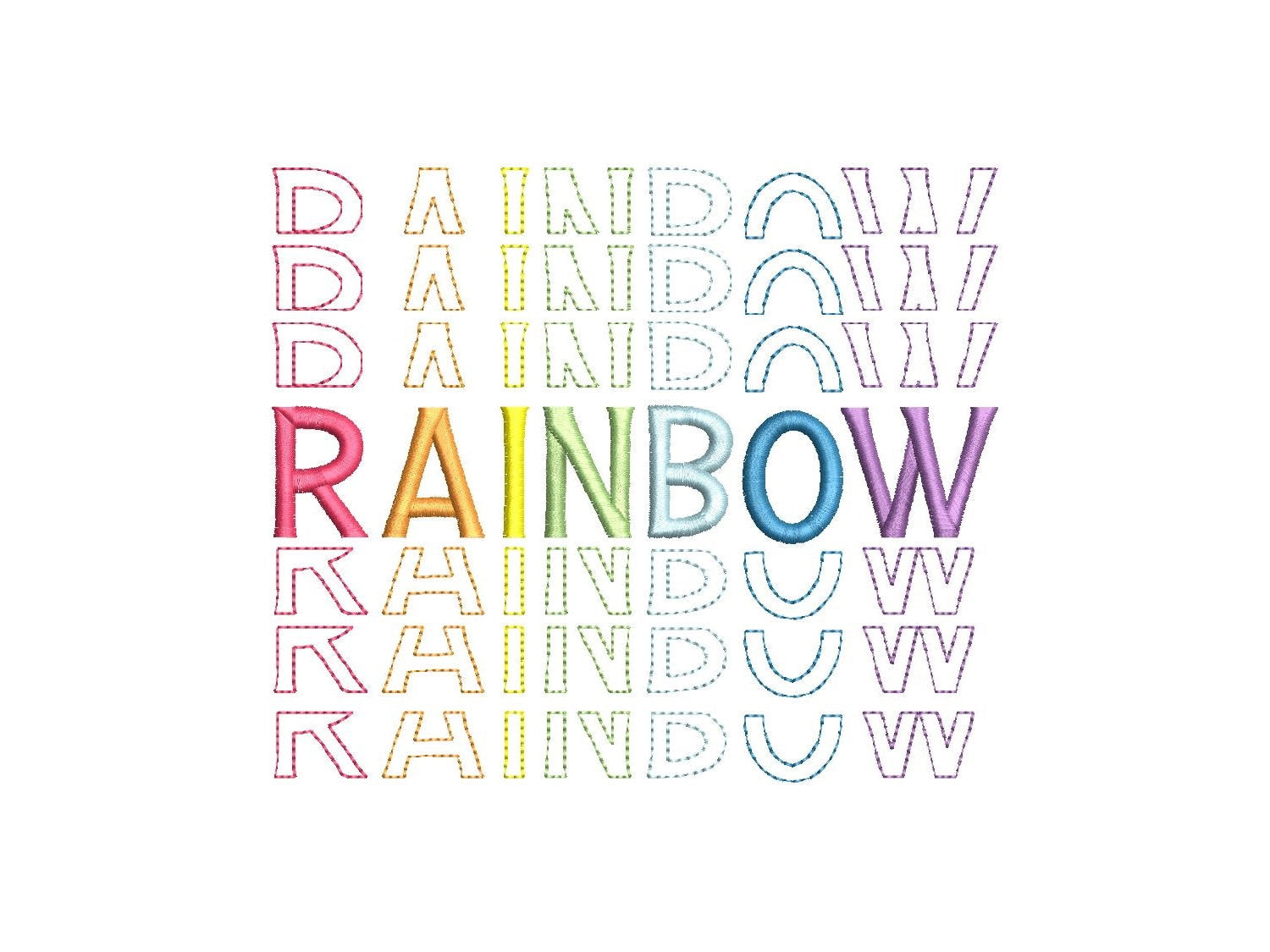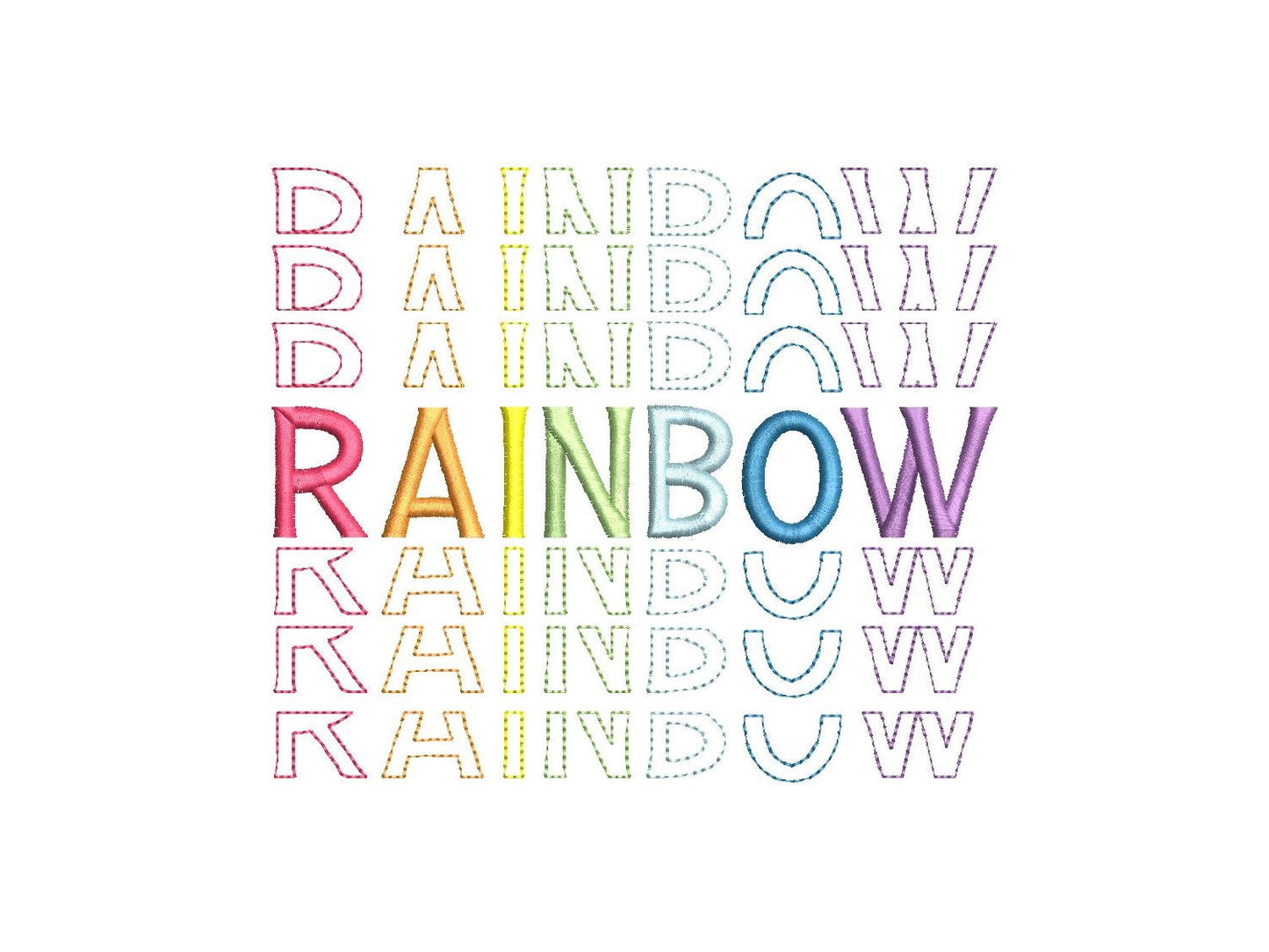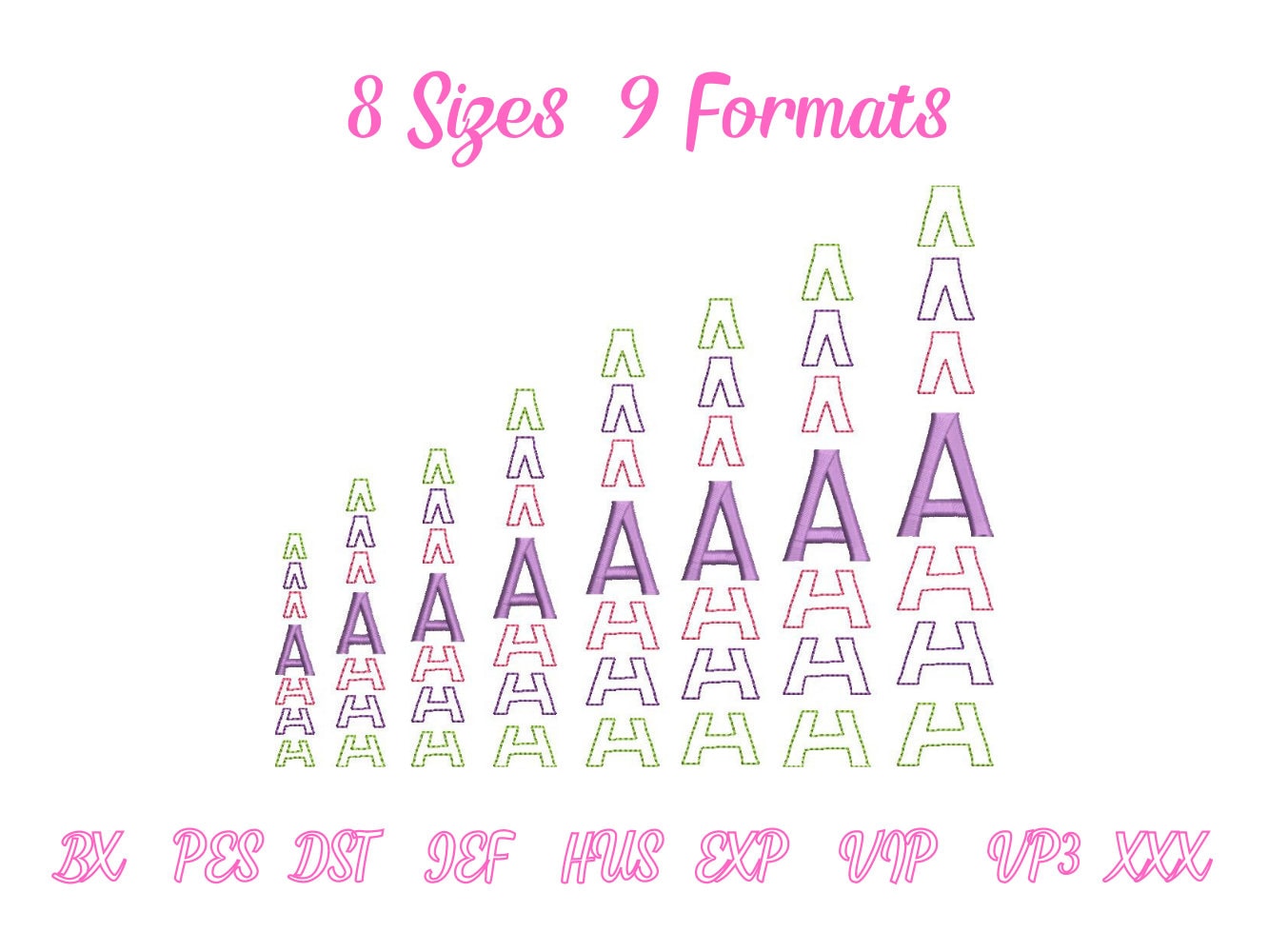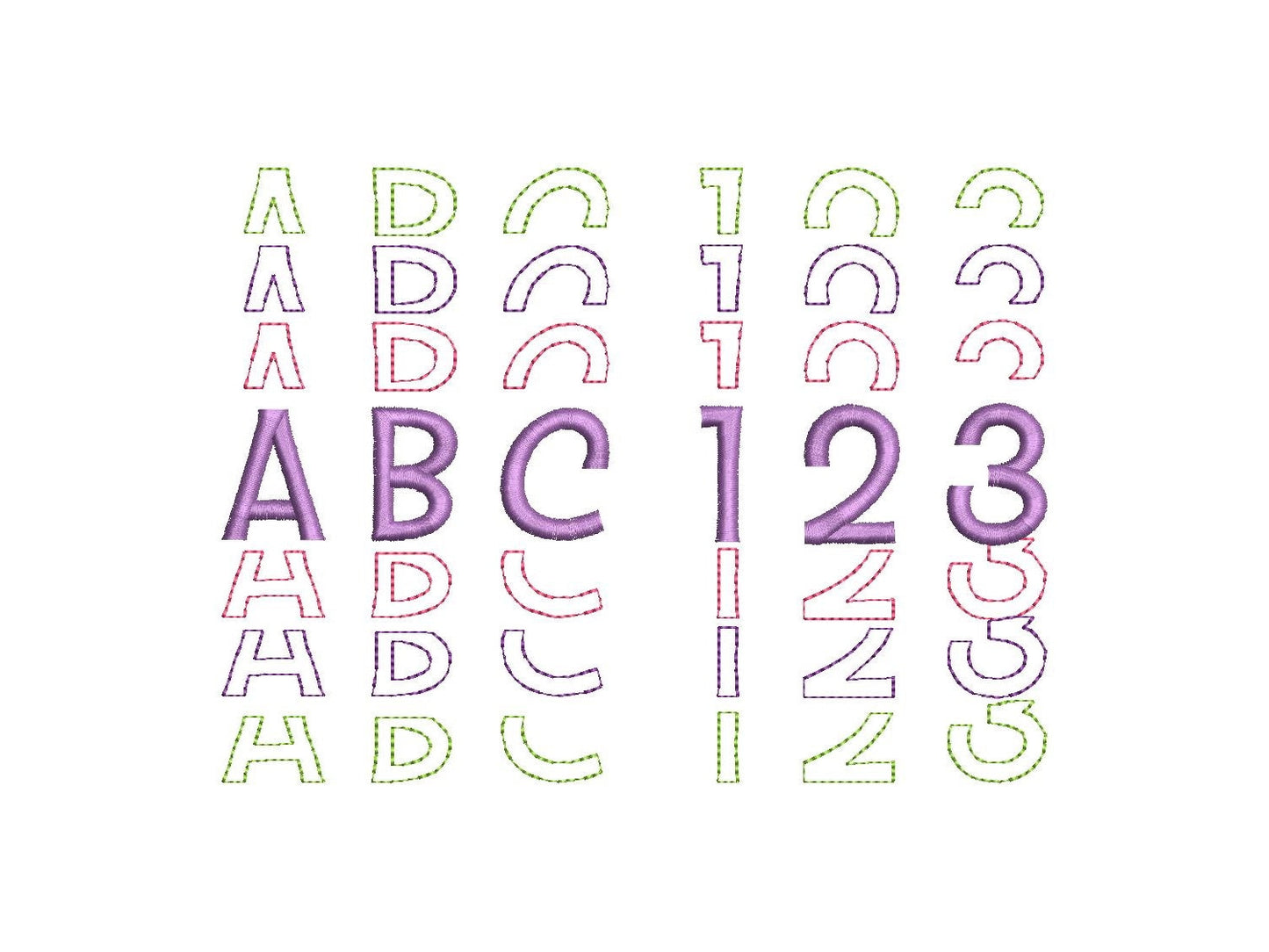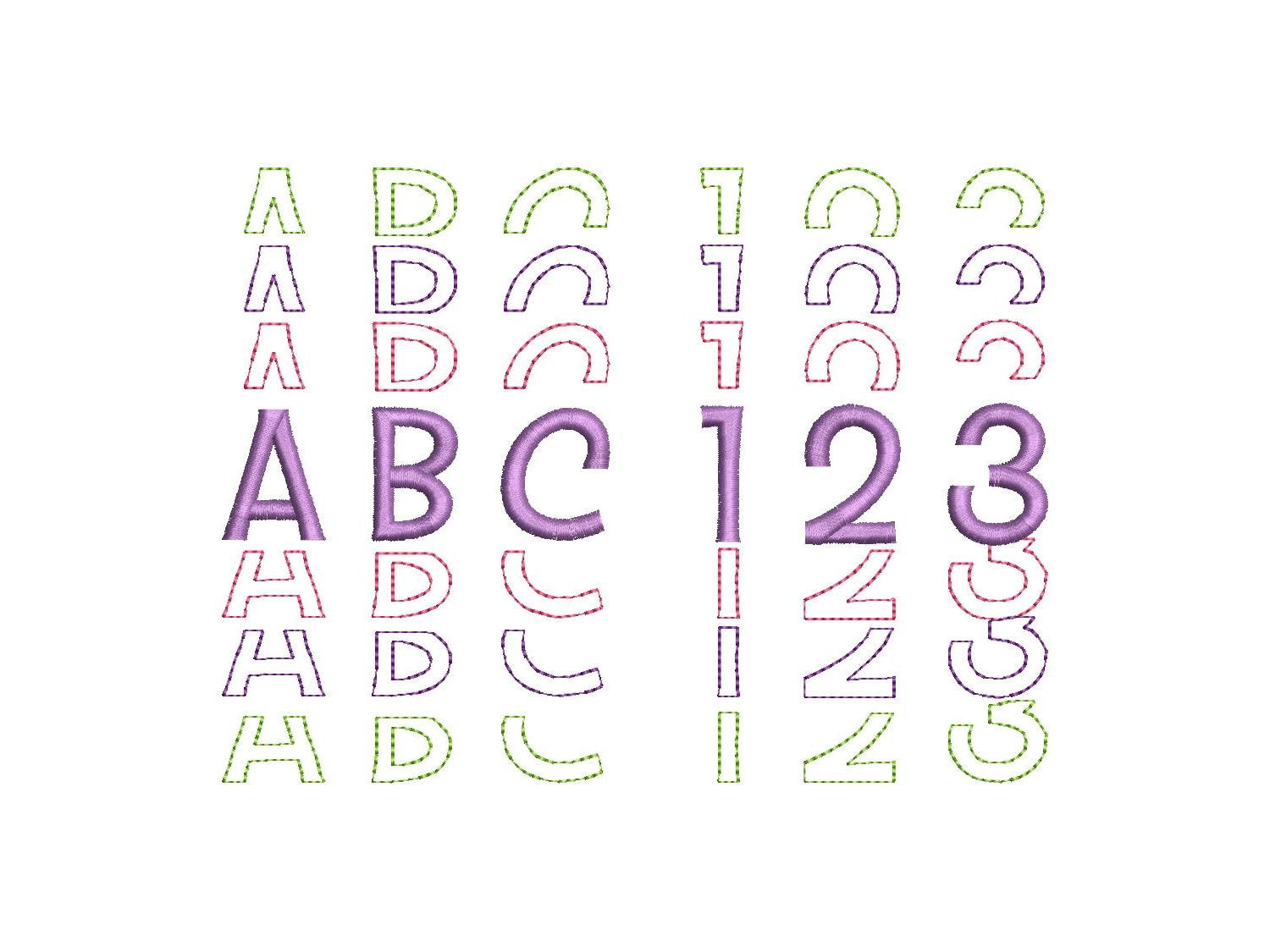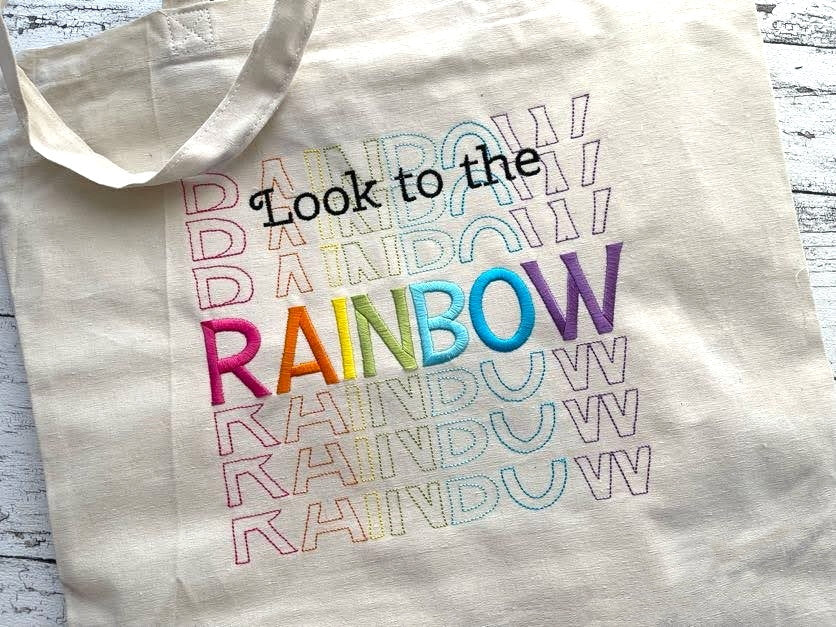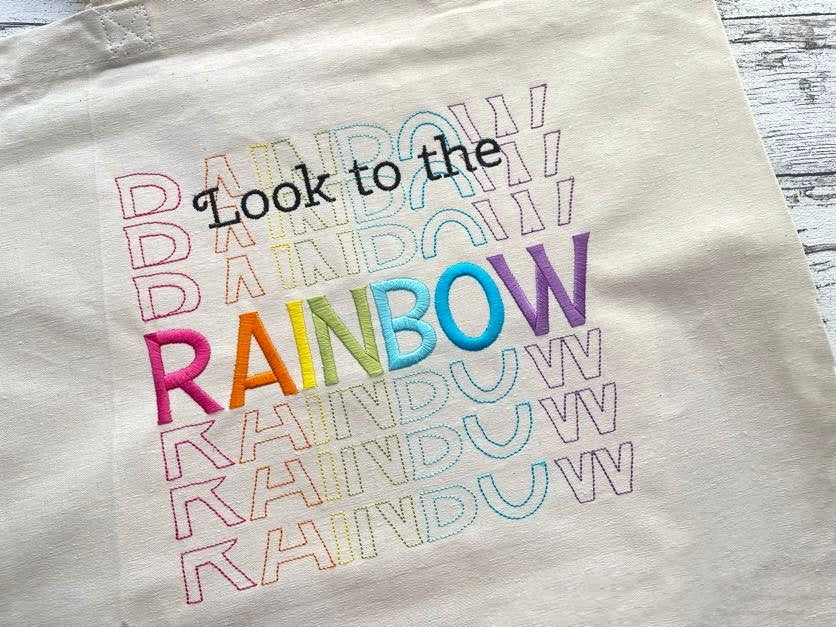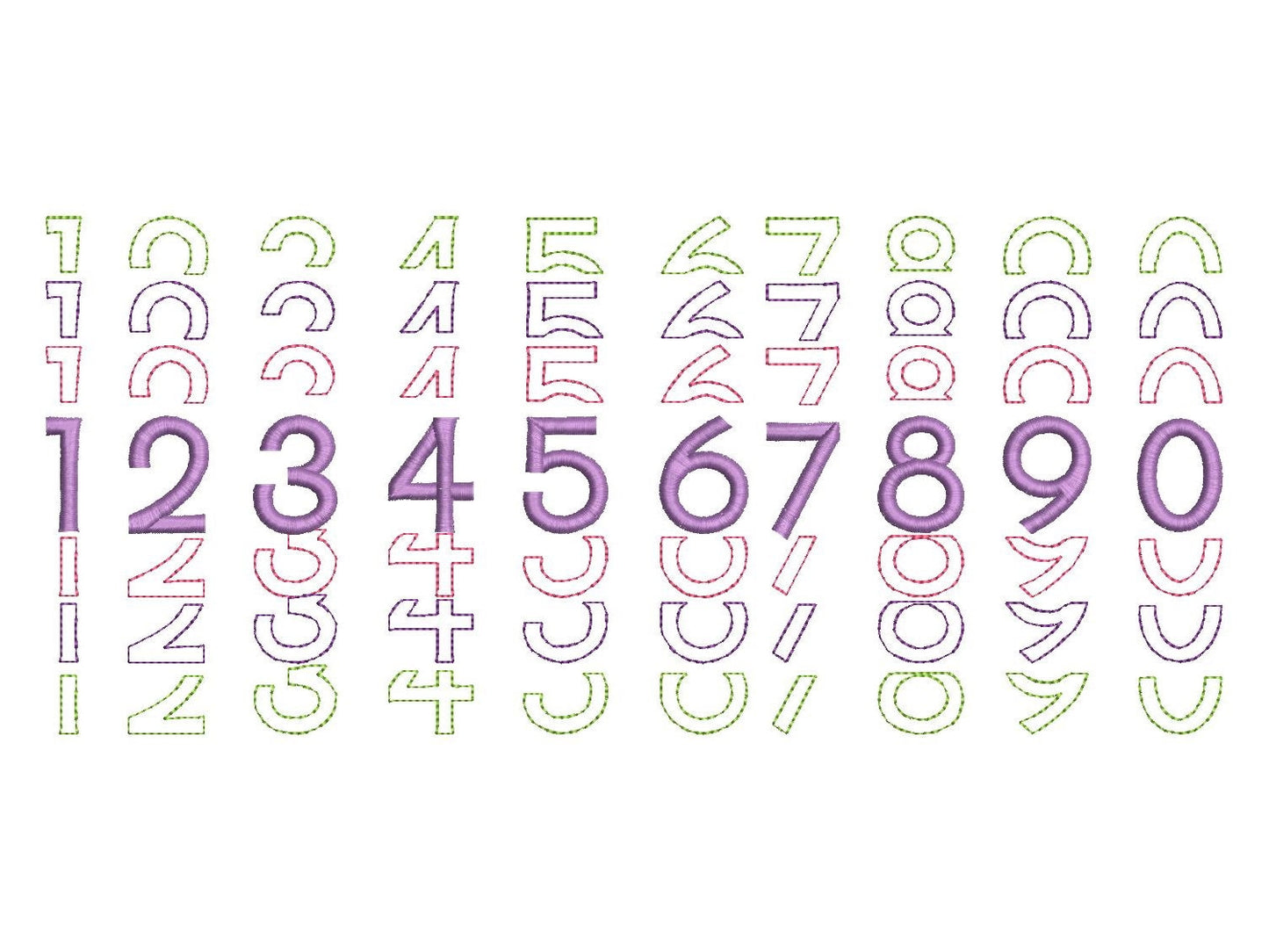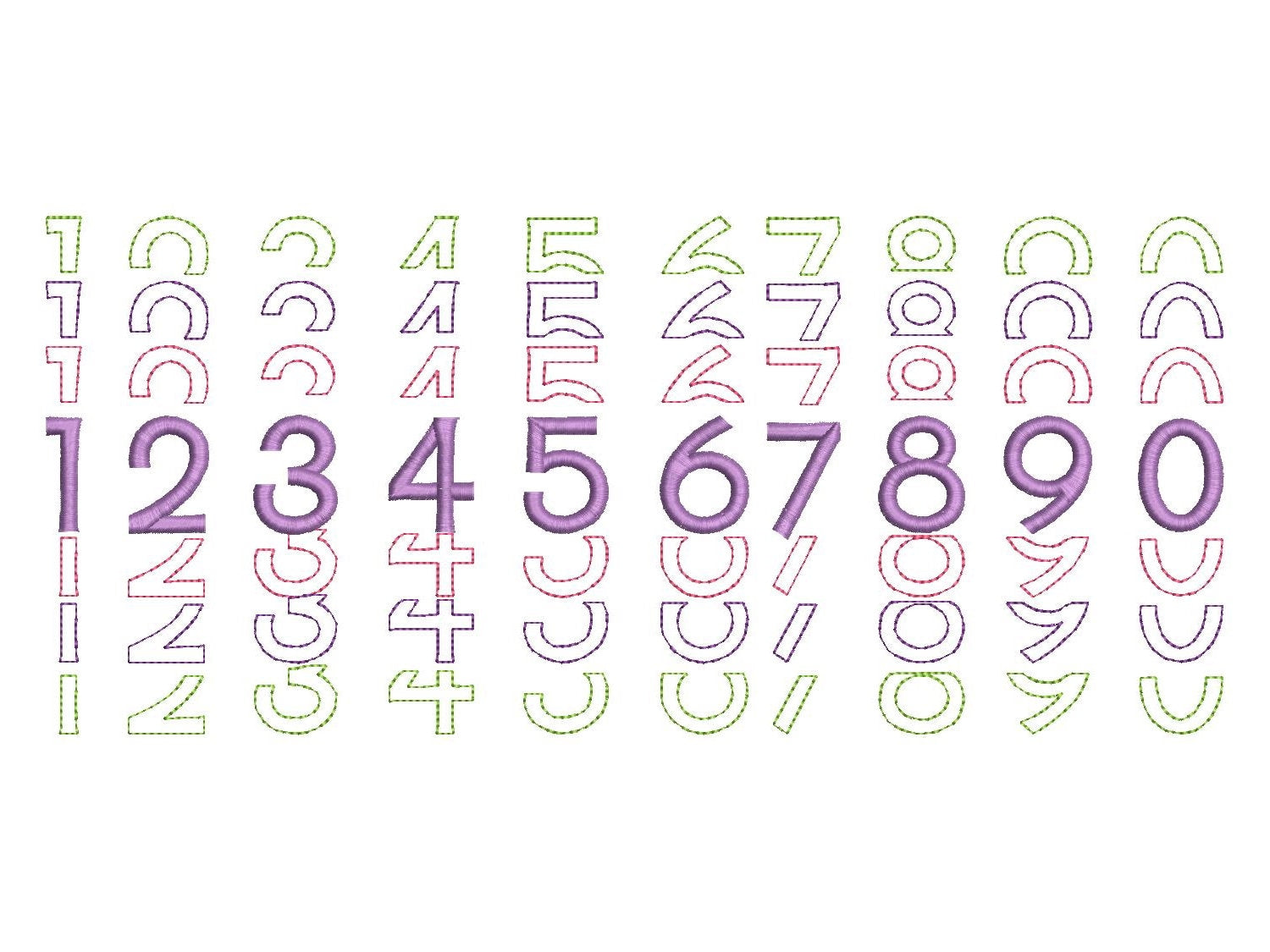
Or click to open the linkA tall stacked font in satin stitch and outline. Great for boys' shirts, hoodies, sleeves and bold words.
Uppercase letters A to Z and numbers 0 to 9. Seven sizes: 3, 4, 5, 6, 6.5, 7 and 8 inches.